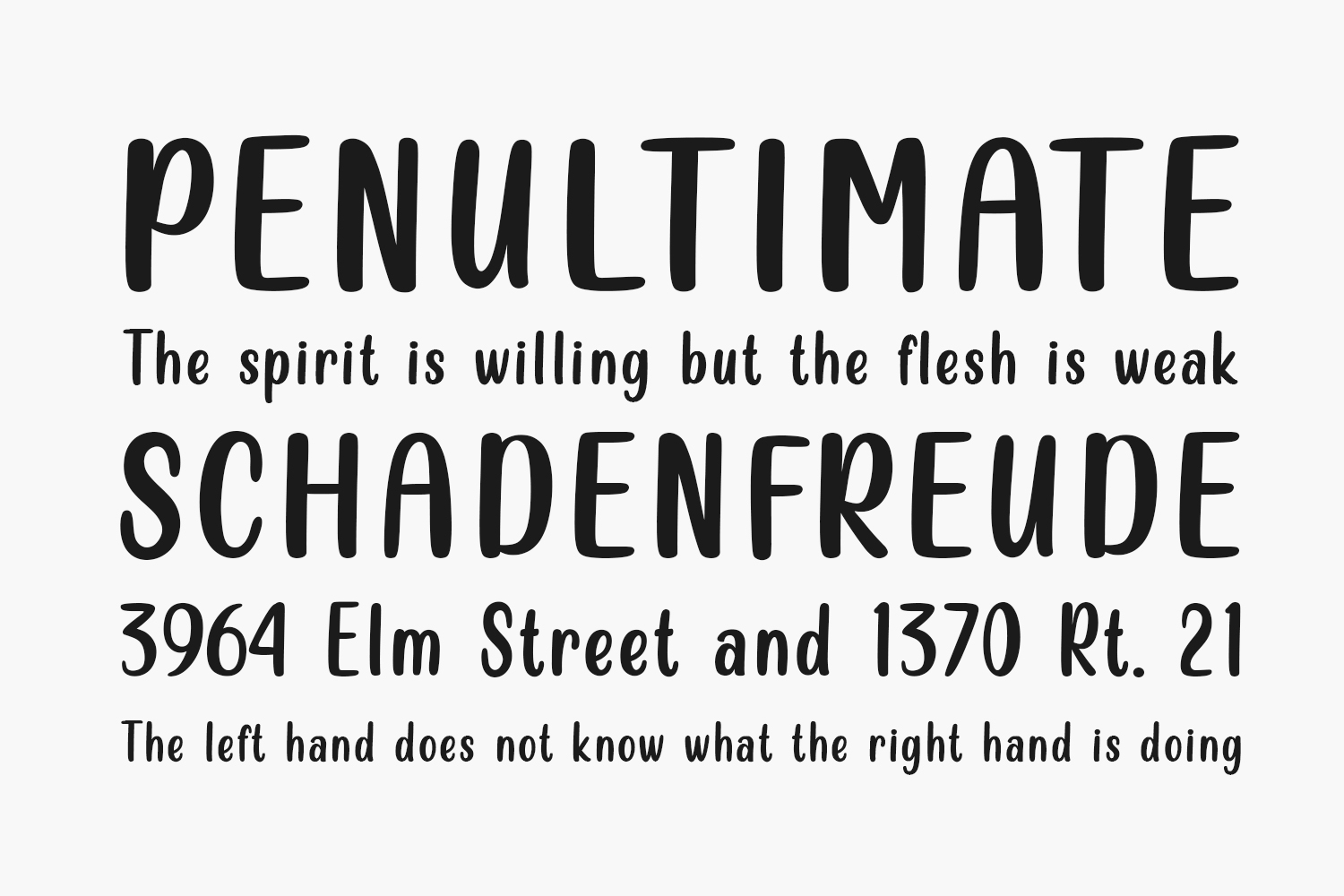
Almond Cookies Free Font is a cute and colorful display font. It embodies playfulness and authenticity and is the perfect choice for any children’s activity or school project. Almond Cookies Free Font was designed by Kurnia Setyadi and is free for personal use only. Please purchase the full version for commercial use.